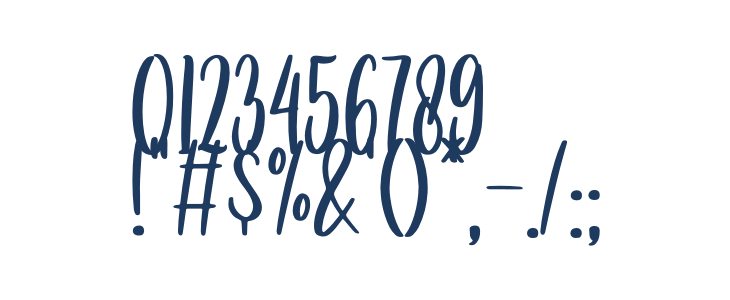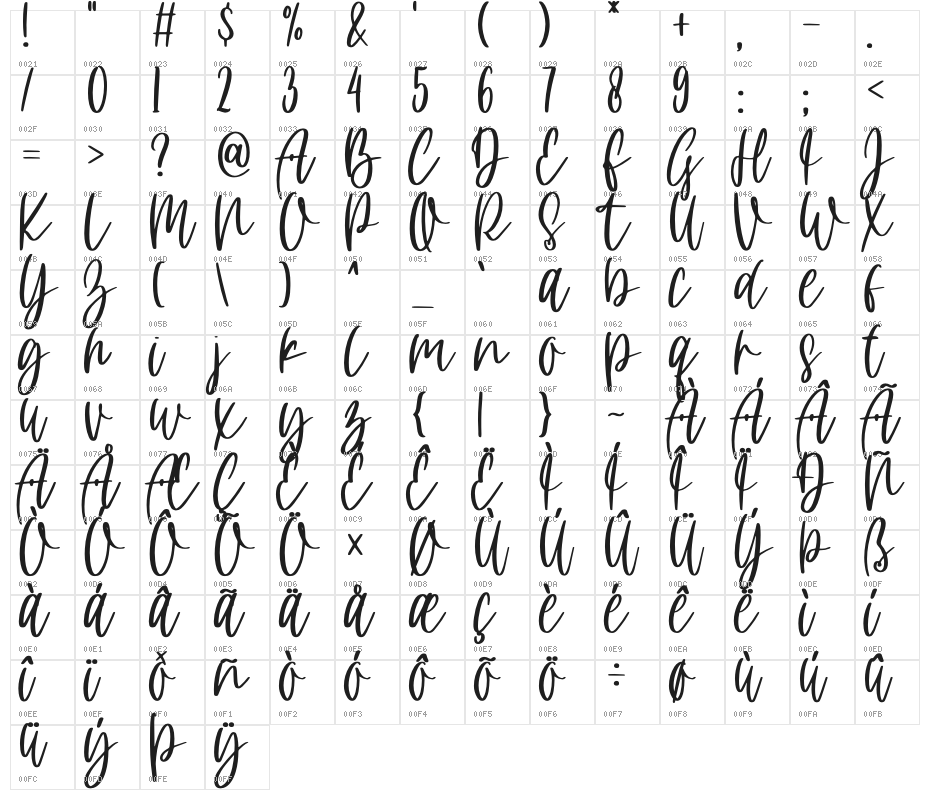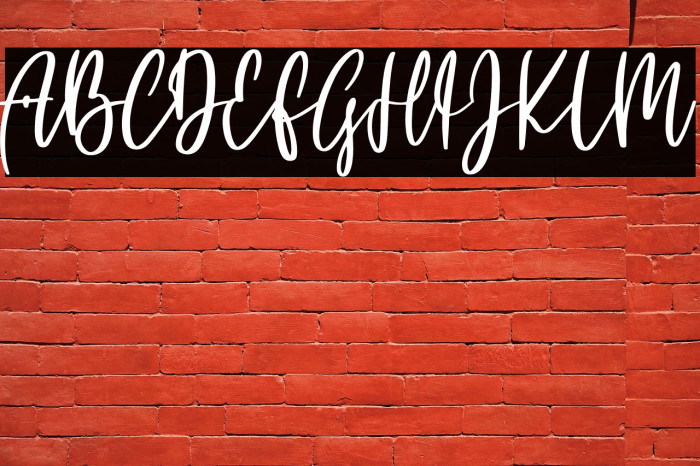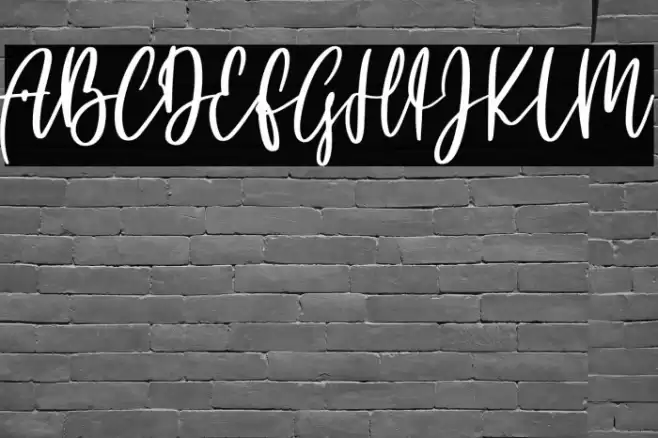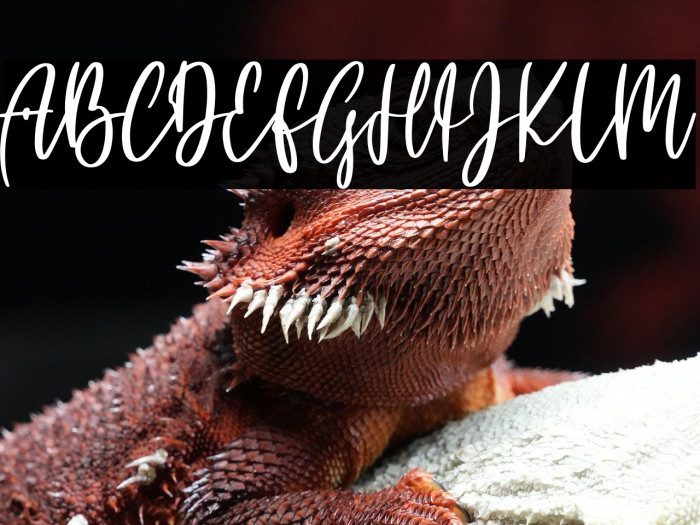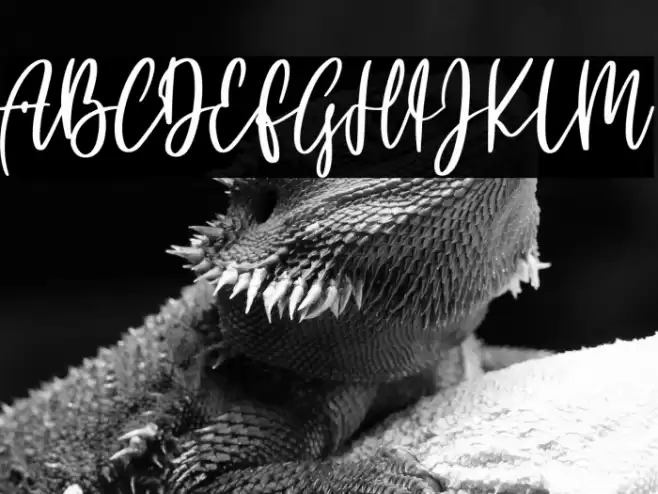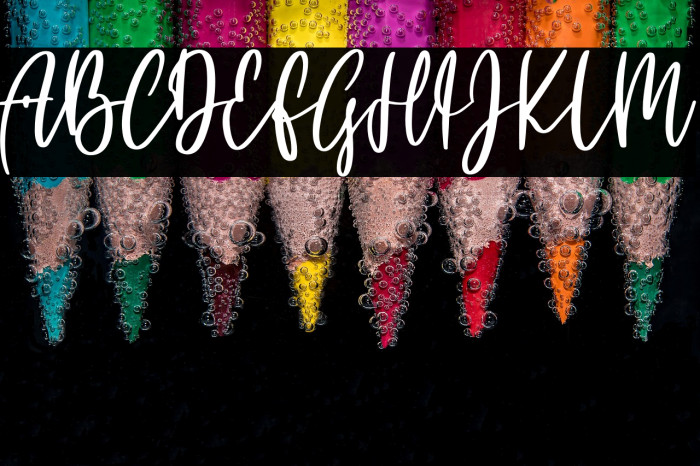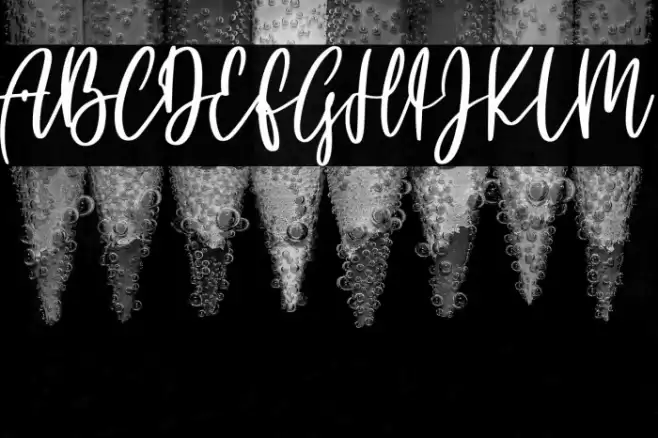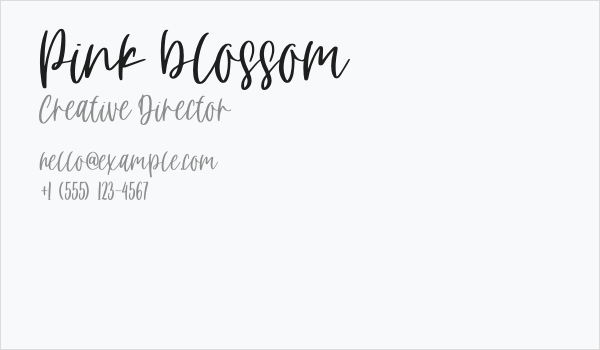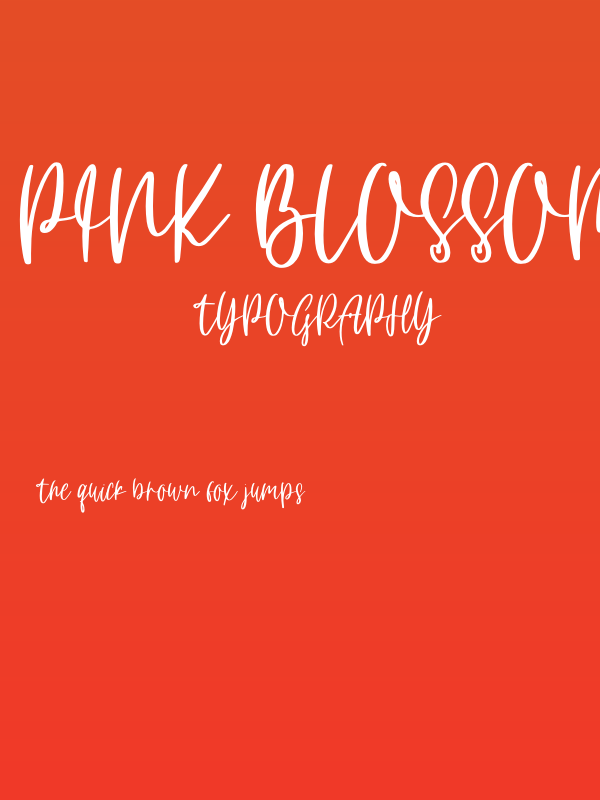
Pink blossom Font
Pink blossom Description
This font features a lively and expressive handwritten style, characterized by its fluid and dynamic strokes. The letters are connected in a cursive manner, giving it a seamless and flowing appearance. The uppercase and lowercase letters maintain a consistent style, with a slight slant that adds to the overall elegance. The numerals and special characters are crafted with the same attention to detail, ensuring a cohesive look across all elements. The font's playful yet sophisticated design makes it suitable for a variety of creative projects.
| Use Case | Logos, Invitations, Social Media |
| Proposed Projects | Ideal for wedding invitations, greeting cards, branding, and social media graphics. |